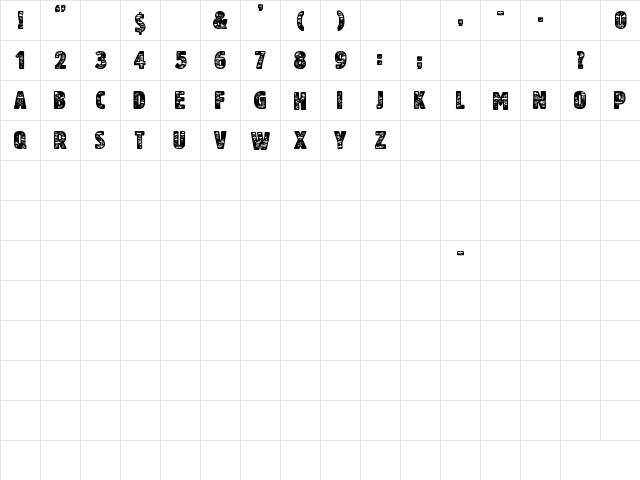
Another Brick Regular
| Designer | Imagex |
Design Context for Another Brick Typeface
Another Brick is a composed and adaptable typeface that performs quietly and consistently across a wide range of design contexts.